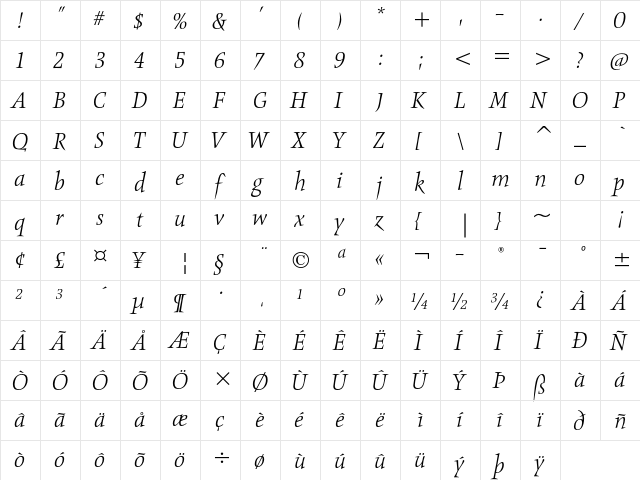
Obelisk ITC Std Light Italic Font Preview
| Designer | Phill Grimshaw |
Design Context for Obelisk ITC Std Typeface
Obelisk ITC Std is a composed and adaptable typeface that performs quietly and consistently across a wide range of design contexts. Its italic angle brings a sense of urgency and motion to the letterforms. Its slender proportions lend an understated elegance to any composition.
Pro Tip: Try Obelisk ITC Std for annotation and caption copy alongside an upright companion — the contrast in angle creates a dynamic but ordered typographic system.